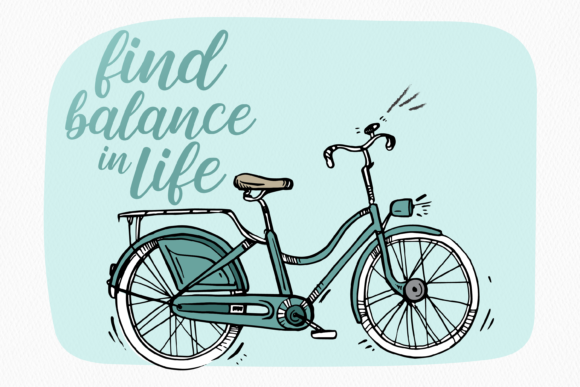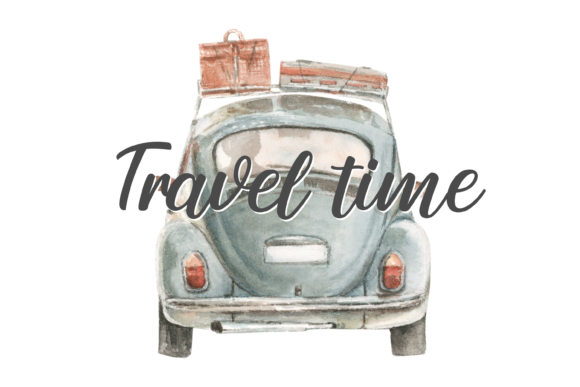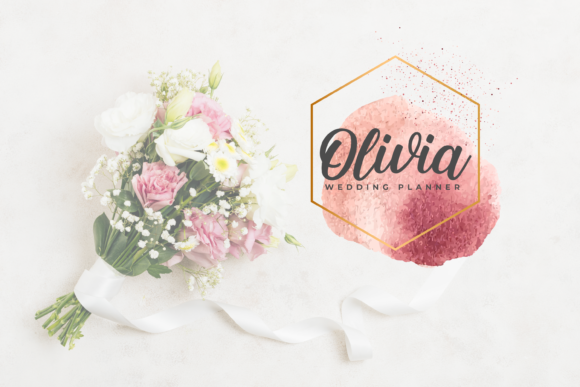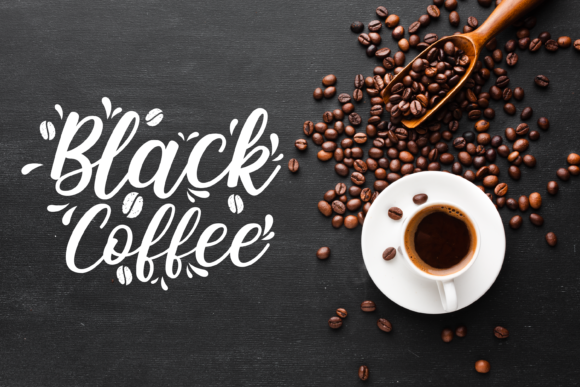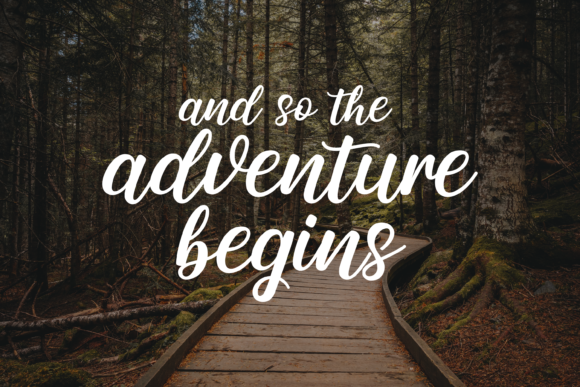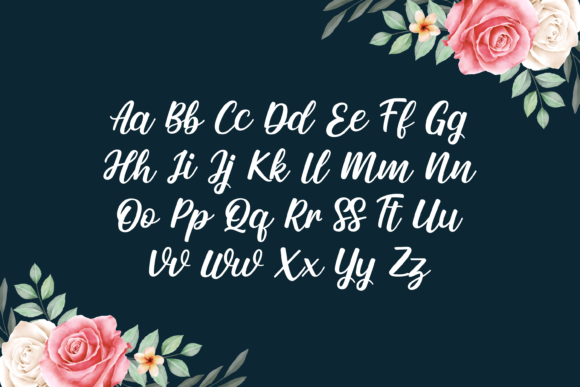
The Bestpart Font: Elevate Your Crafting Projects with Modern Calligraphy
I’ll never forget the time I was working on a custom wedding invitation project, and my client asked for a font that was both elegant and playful. I scoured the internet, trying out font after font, but nothing seemed quite right. That was until I stumbled upon the Bestpart font. Inspired by modern calligraphy, this gorgeous script has become my go-to for crafting projects that require a touch of sophistication and whimsy.
An Honest Review of Bestpart Font
- ✨ Elegant and modern calligraphy-inspired design
- ✅ Extensive OpenType features, including glyphs and stylistic alternates
- ✅ Perfect for crafting projects, such as wedding invitations, party decor, and DIY signs
While Bestpart is an amazing font, there are a few things to keep in mind: ⚠️ It may not be the best choice for body text, as it’s designed for display purposes. 🤔 Some of the more intricate glyphs and alternates may not work well at very small font sizes.
If you love Bestpart, you may also want to try these similar fonts:
- Kaitlynn: A beautiful, handwritten script with a similar feel to Bestpart. Use Kaitlynn for projects that require a more whimsical, cursive look.
- Alex Brush: A elegant, modern script with a similar sense of sophistication. Use Alex Brush for projects that require a more refined, luxurious look.
- Pacifico: A stunning, modern script with a similar blend of elegance and playfulness. Use Pacifico for projects that require a bold, eye-catching look.
- Great Vibes: A gorgeous, handwritten script with a similar sense of personality. Use Great Vibes for projects that require a more casual, laid-back look.
The Story Behind Bestpart Font
Bestpart was designed with the modern crafter in mind. The font’s creator wanted to capture the elegance and sophistication of modern calligraphy, while still making it accessible to crafters and designers who may not have extensive design experience. The result is a font that’s both beautiful and easy to use.
| Font Name | Bestpart Font |
| Author | Letterflow Studio |
Q: What type of projects is Bestpart font best suited for?
A: Bestpart is perfect for crafting projects, such as wedding invitations, party decor, DIY signs, and more.
Q: Does Bestpart support OpenType features?
A: Yes, Bestpart has extensive OpenType features, including glyphs, stylistic alternates, and more.